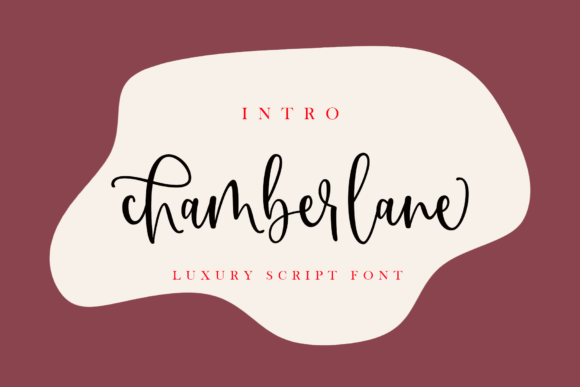
Indulge in the splendor of Chamberlane Font, a mesmerizing calligraphy script that dances across your designs with grace and elegance. With its enchanting varying baseline and smooth, flowing lines, Chamberlane captivates with its classic charm and a touch of modern flair. Allow your imagination to soar as you explore the myriad possibilities that await with this versatile font.
Express your creativity like never before as you craft stunning logos that exude timeless sophistication. Adorn your posters and t-shirts with eye-catching typography that commands attention. Let Chamberlane's allure shine through your signage and labels, adding a touch of elegance to every interaction. Celebrate life's special moments with wedding invitations that radiate romance and joy. Elevate your branding with badges that speak volumes about your unique style.
Unlock the full potential of Chamberlane's beauty with its PUA encoding, granting you effortless access to a world of glyphs and swashes that add depth and dimension to your designs. Unleash your creativity and transform your ideas into visual masterpieces that leave a lasting impression. Chamberlane Font, a symphony of sophistication, awaits your creative touch. Embrace its allure and let your designs flourish with timeless beauty.